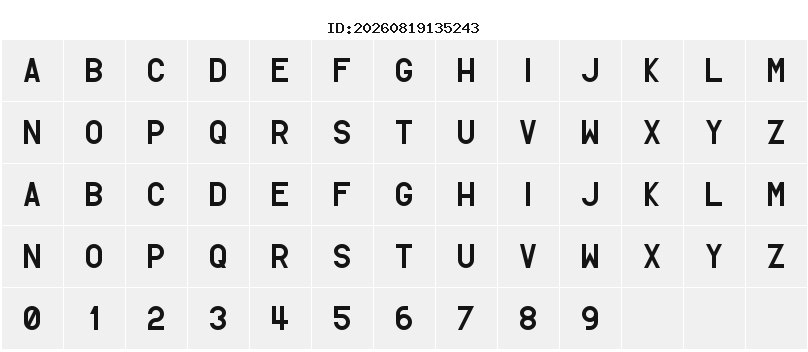
Simpleton Gothic Preview
• Font Name: Simpleton Gothic
• Full Font Name: Simpleton Gothic Regular
• Designer: Out Of Step Font Company
Simpleton Gothic.ttf is a modern, elegant sans-serif font designed for ultimate readability and visual harmony. Perfect for branding, headlines, web design, and print materials.